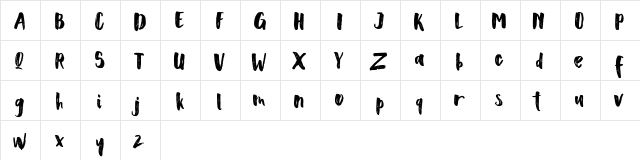
Scoothlane Sans Brush Regular
| Foundry | Mercurial |
| Designer | Salt |
Design Context for Scoothlane Sans Brush Typeface
Scoothlane Sans Brush brings a calligraphic fluidity to the page — its connecting strokes and expressive curves give it an unmistakably human quality.
Font Pairing: Combine Scoothlane Sans Brush with a simple geometric sans for maximum contrast — the tension between flowing curves and clean structure is a classic typographic pairing.
Pro Tip: Pair Scoothlane Sans Brush with a clean sans-serif for supporting text. The contrast between fluid script and geometric structure creates an elegant typographic hierarchy.